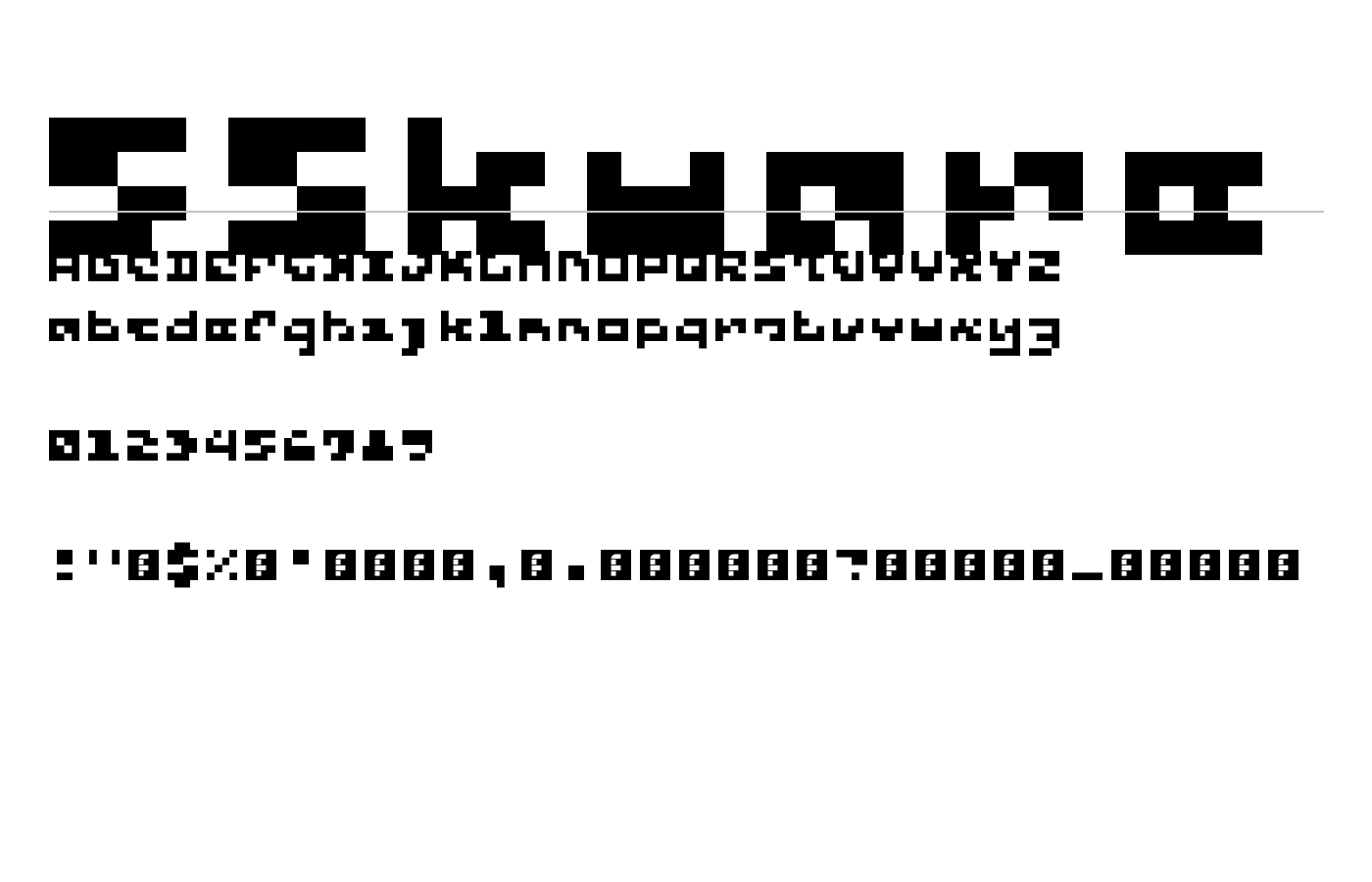
5Skware is a bold, geometric pixel-style sans serif font with a strong blocky appearance, perfect for retro or digital-inspired designs. Its consistent stroke weight and square shapes give it a techy, modern feel, making it ideal for video game titles, tech branding, or eye-catching headlines. This font works best in display use where its unique, pixelated charm can stand out clearly.
5Skware Font
About 5Skware Font
| Font family | 5Skware Font |
| Designer | Noah - 10 year old typomaniac |